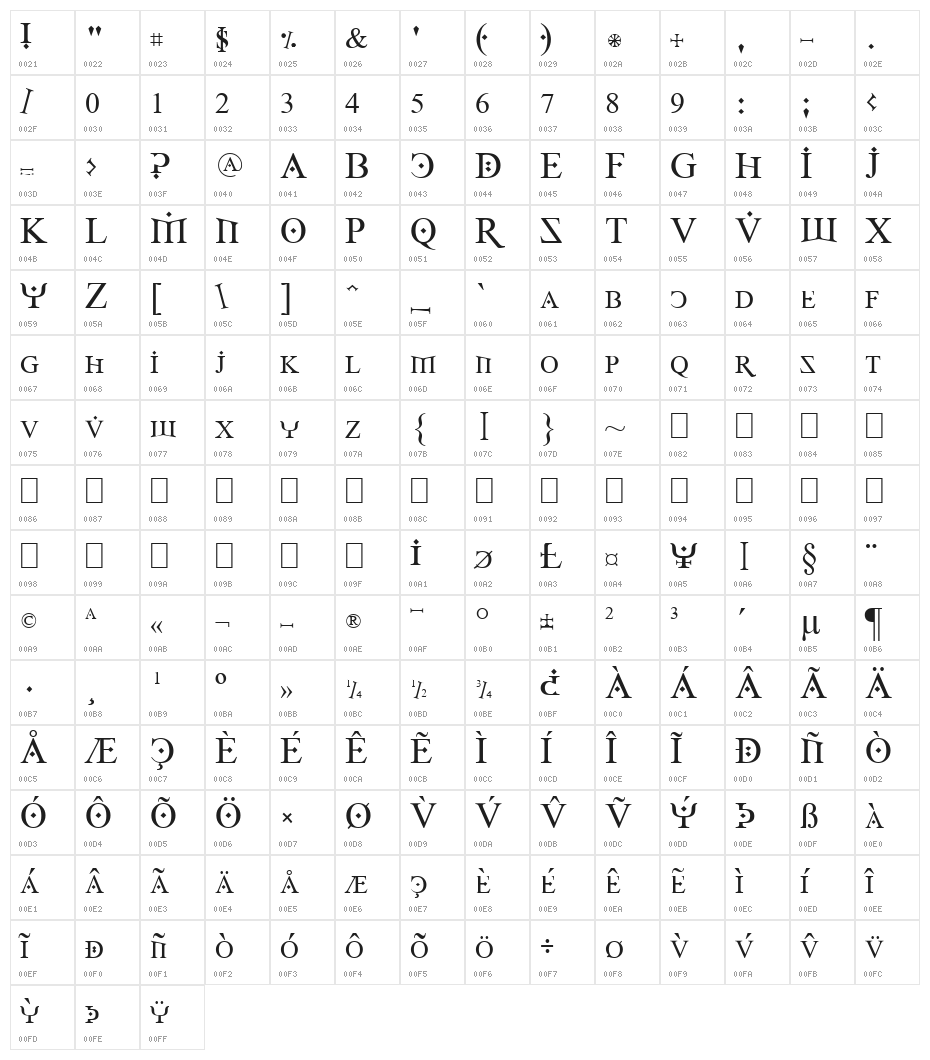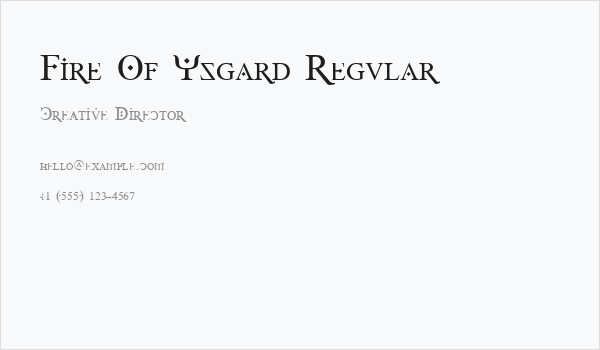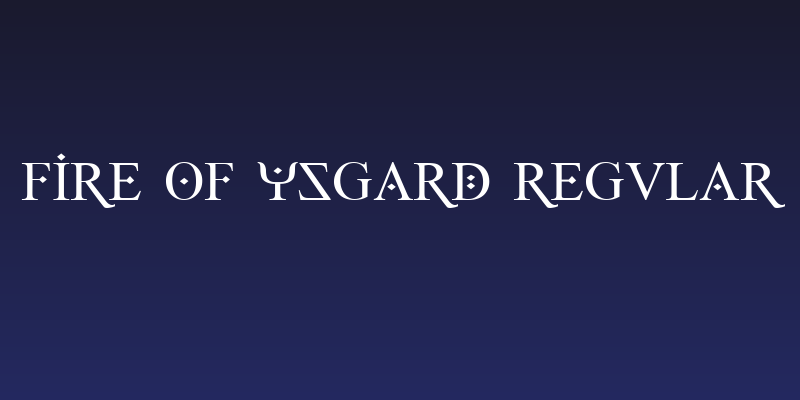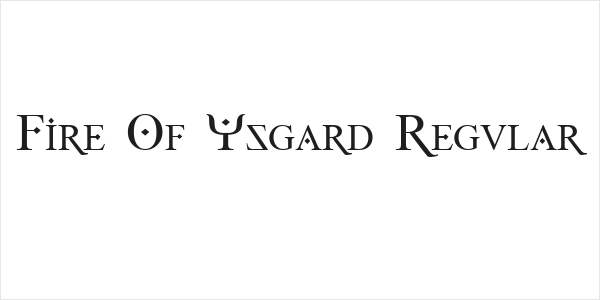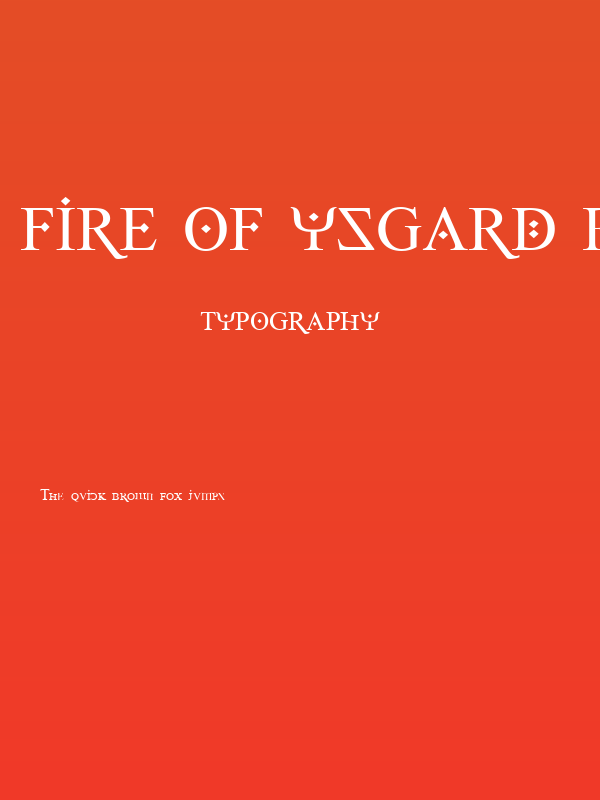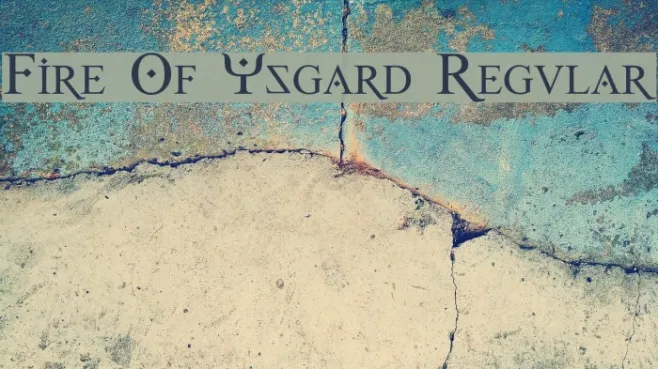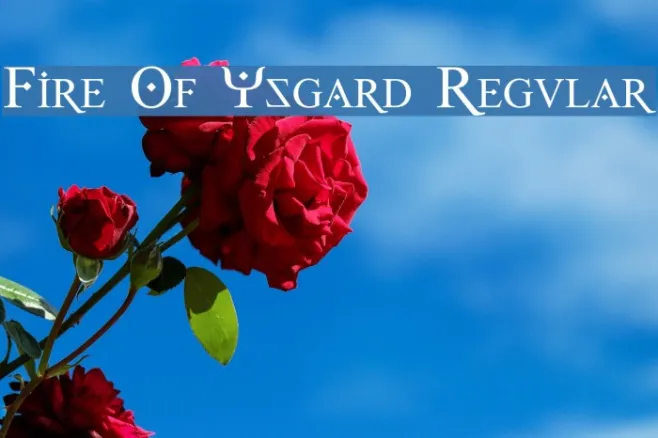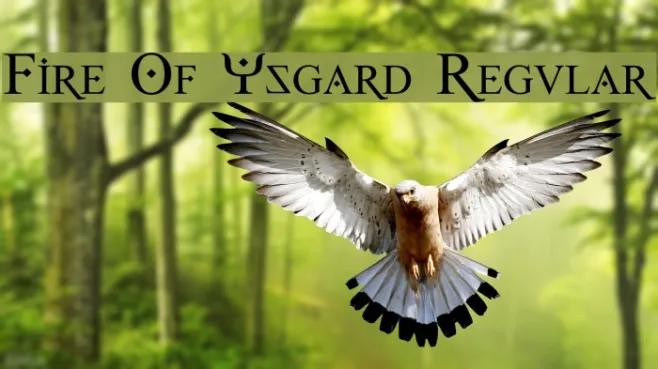
Fire Of Ysgard Regular Font
Fire Of Ysgard Regular Description
This font features a unique blend of classic and modern elements, characterized by its bold and striking appearance. The uppercase letters exhibit a strong presence with sharp serifs and distinctive geometric shapes, particularly noticeable in letters like 'A', 'B', and 'E'. The lowercase letters maintain a consistent style, complementing the uppercase with slightly less pronounced serifs. The numerals are clear and legible, with a uniform stroke width that ensures readability. Special characters are creatively designed, adding a decorative touch that enhances the font's overall aesthetic. This typeface is ideal for projects that require a bold and impactful visual statement.
| Proposed Projects | Ideal for branding, headlines, posters, and any design requiring a strong visual impact. |